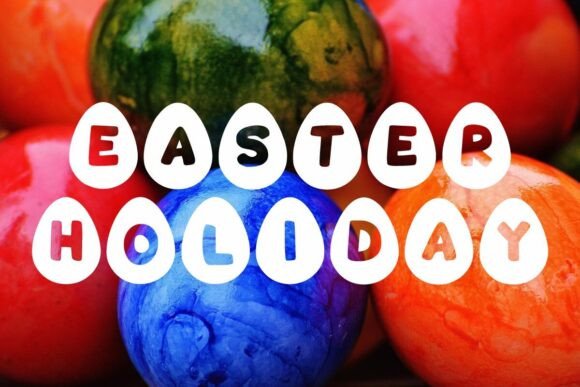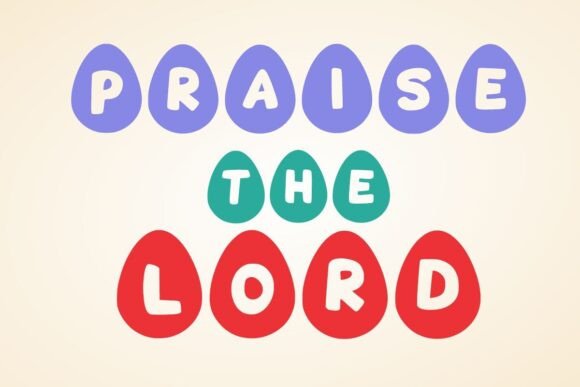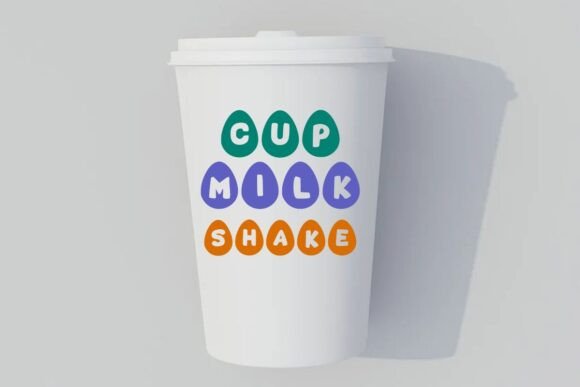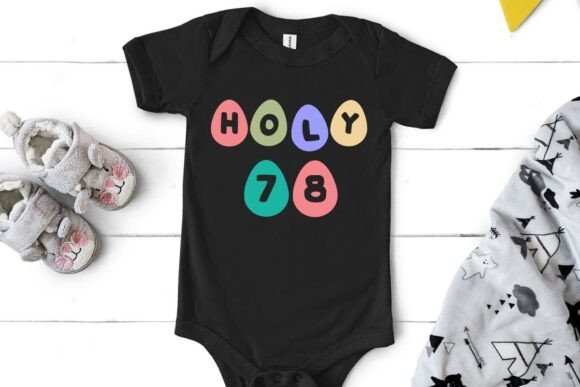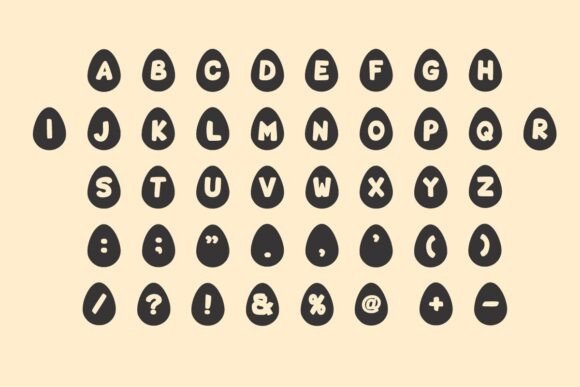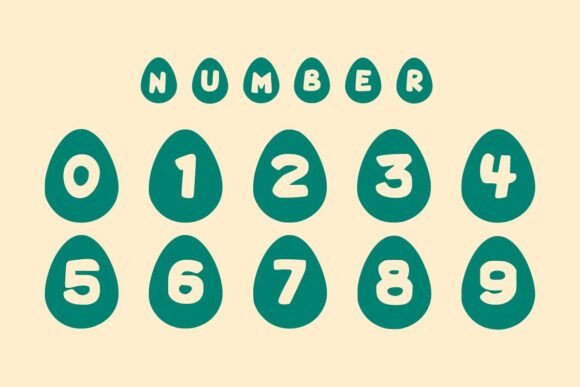
Egg Bunny Font: The Fun and Playful Easter Decorative Font
Are you looking for a font that can add a touch of youth and joy to your designs? Look no further than the Egg Bunny Font! This round egg and fun decorative Easter font is perfect for holiday promotions, price tags, logos, party invitations, and any design that requires a playful and festive touch.
What is Egg Bunny Font?
Egg Bunny Font is a unique and creative font that is specifically designed for Easter-themed designs. The font features round egg-shaped letters and characters, with a fun and playful style that is sure to bring a smile to anyone’s face. The font is perfect for designers and crafters who want to add a touch of whimsy and fun to their designs.
Features of Egg Bunny Font
- Round Egg-Shaped Letters: The font features round egg-shaped letters and characters, giving it a unique and playful look.
- Fun and Playful Style: The font has a fun and playful style that is perfect for Easter-themed designs.
- High-Quality Design: The font is designed with high-quality graphics, ensuring that it looks great in any design.
Uses of Egg Bunny Font
Egg Bunny Font can be used in a variety of ways, including:
- Holiday Promotions: Use the font to create fun and playful holiday promotions, such as Easter egg hunts or sales.
- Price Tags: Add a touch of whimsy to your price tags with the Egg Bunny Font.
- Logos: Use the font to create a fun and playful logo for your business or brand.
- Party Invitations: Create fun and playful party invitations with the Egg Bunny Font.
- Designs: Use the font to add a touch of youth and joy to any design, such as brochures, flyers, or social media graphics.
Benefits of Using Egg Bunny Font
Using Egg Bunny Font can bring a number of benefits to your designs, including:
- Unique and Playful Look: The font adds a unique and playful look to your designs, making them stand out from the crowd.
- Increased Engagement: The font’s fun and playful style can help increase engagement with your audience, making them more likely to interact with your design.
Tips for Using Egg Bunny Font
Here are some tips for using Egg Bunny Font:
- Use it Sparingly: Use the font sparingly to avoid overwhelming your design.
- Pair it with Other Fonts: Pair the font with other fonts to create a unique and interesting look.
Egg Bunny Font is a fun and playful Easter decorative font that is perfect for designers and crafters who want to add a touch of youth and joy to their designs. With its unique and playful style, the font is sure to bring a smile to anyone’s face. Whether you’re creating holiday promotions, price tags, logos, party invitations, or any other design, Egg Bunny Font is a great choice.
- What is Egg Bunny Font? Egg Bunny Font is a round egg and fun decorative Easter font.